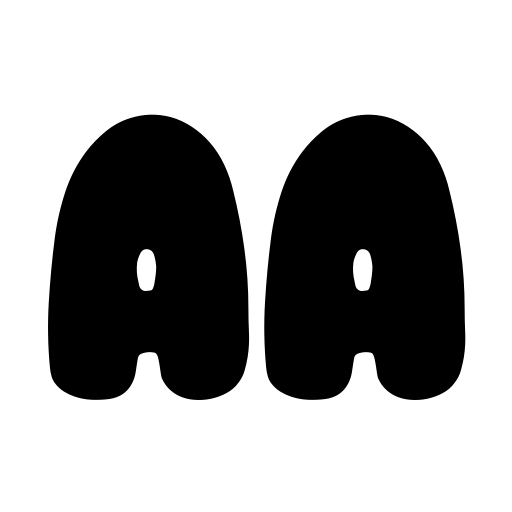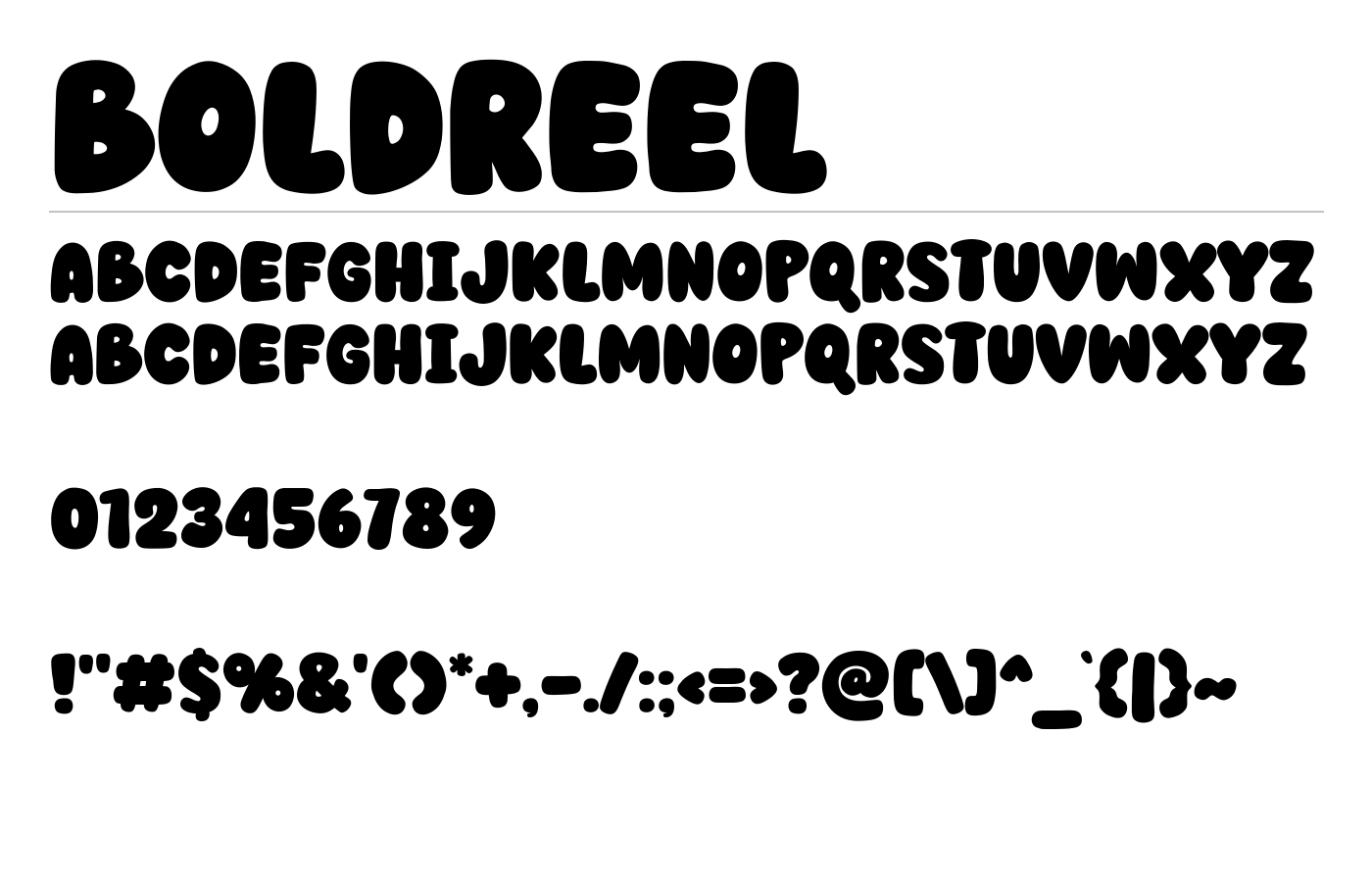
Boldreel is a chunky, bold sans serif font with rounded, playful letterforms that give it a friendly and approachable personality. Its thick, uniform strokes and soft curves make it ideal for attention-grabbing headlines, logos, and fun branding projects where a lively and informal vibe is desired. This font works especially well for children's products, casual packaging, and creative posters due to its strong presence and inviting style.
Boldreel Font
About Boldreel Font
| Font family | Boldreel Font |